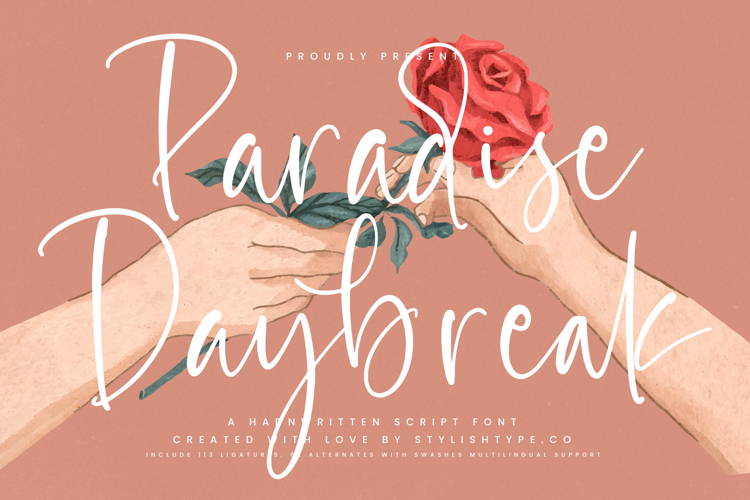
Paradise Daybreak - Handwritten Script Font
Expand your brand's reach and connect with global audiences. With its extensive multilingual support, Paradise Daybreak - Handwritten Script Font adapts seamlessly across global markets, making it incredibly versatile for international projects. This robust adaptability ensures your message retains its elegant charm and professional appeal, making it an invaluable tool for global branding and inclusive communication.